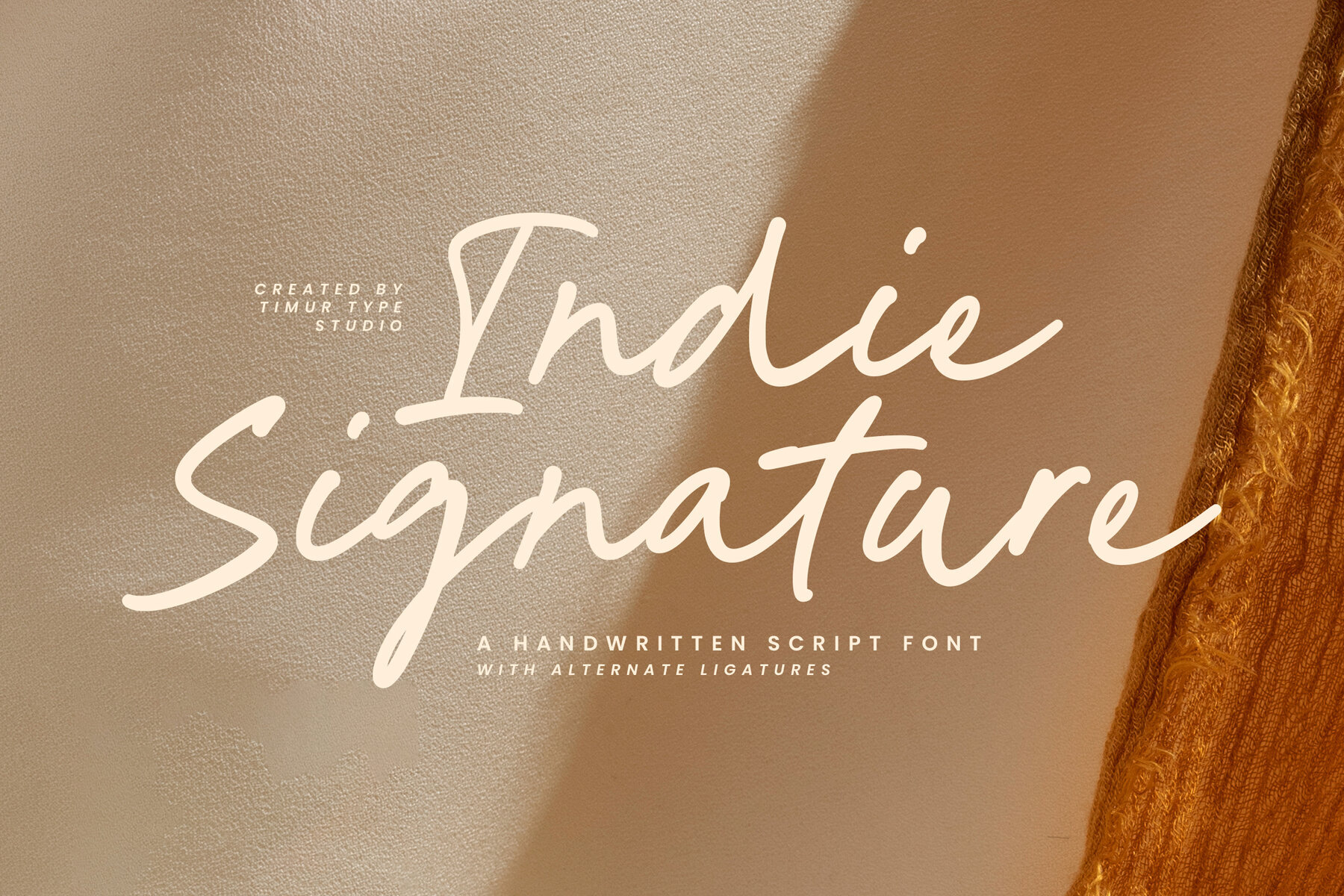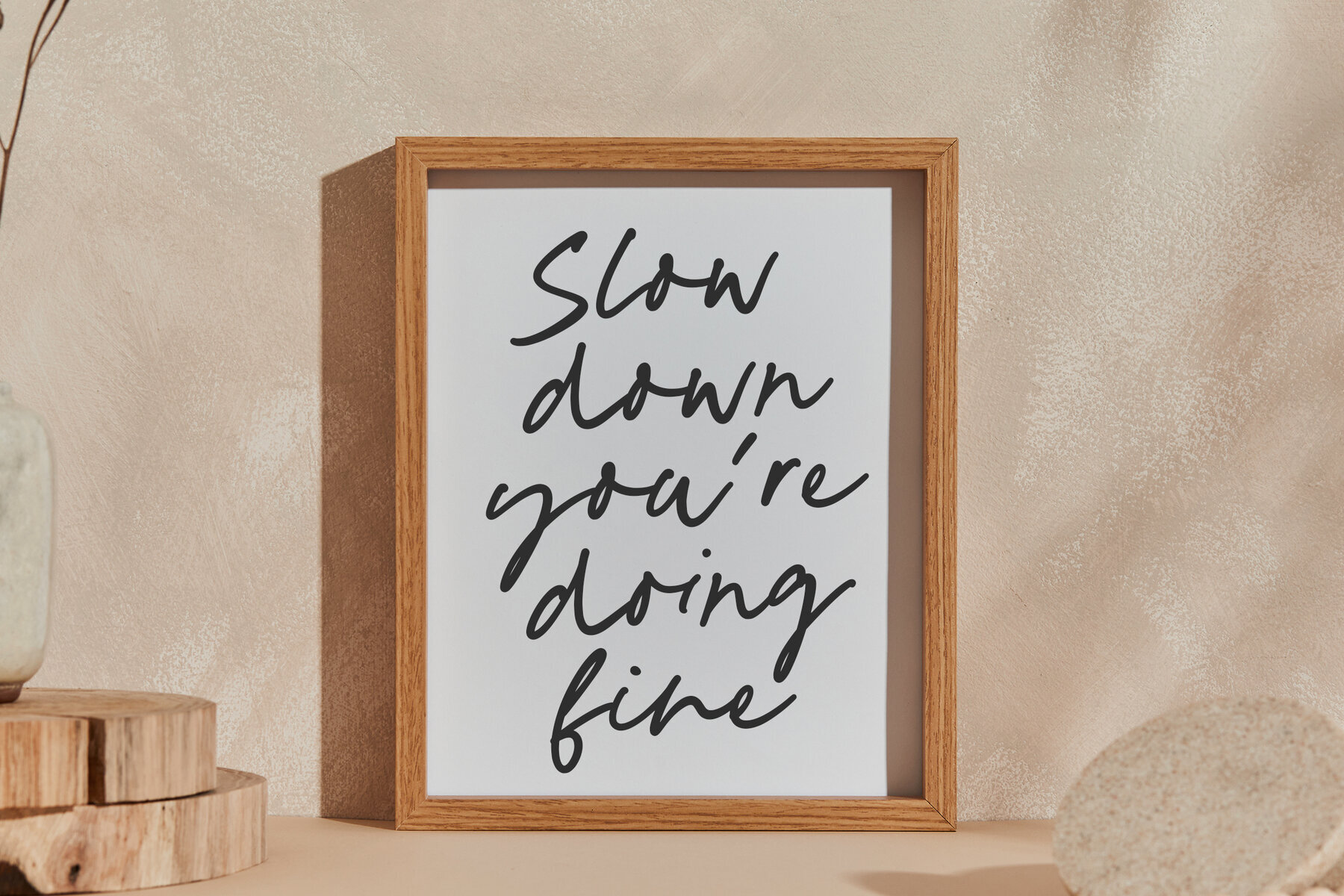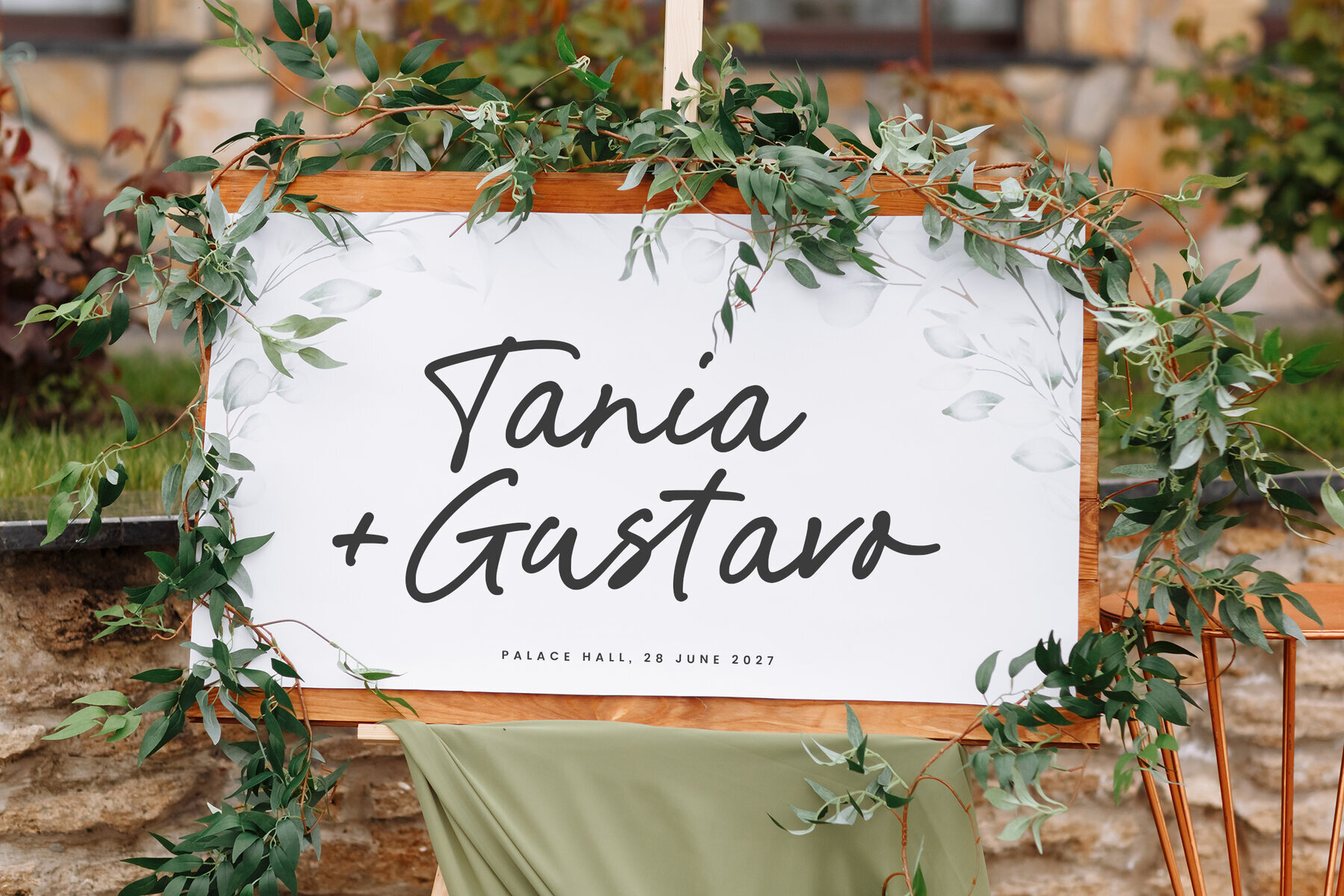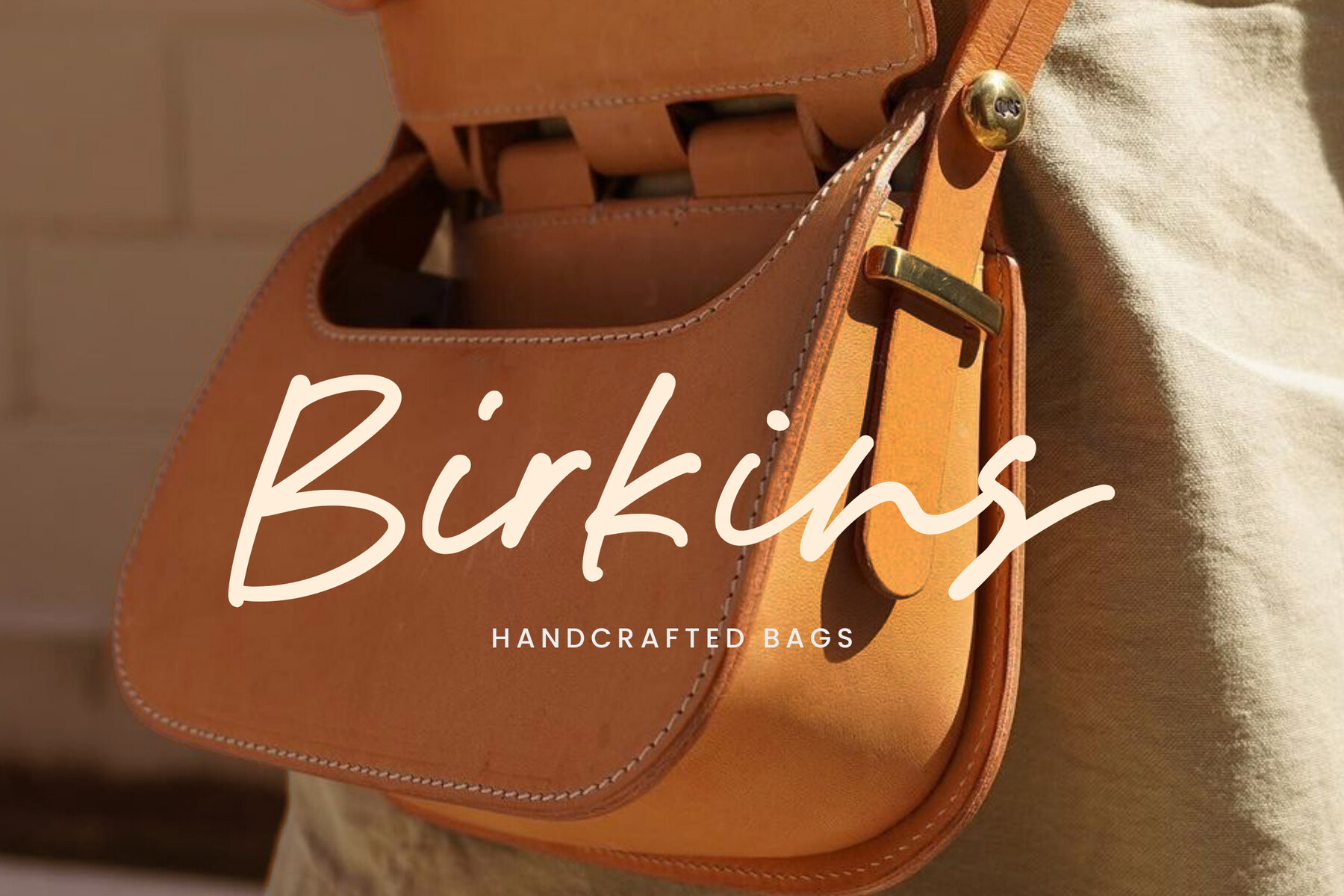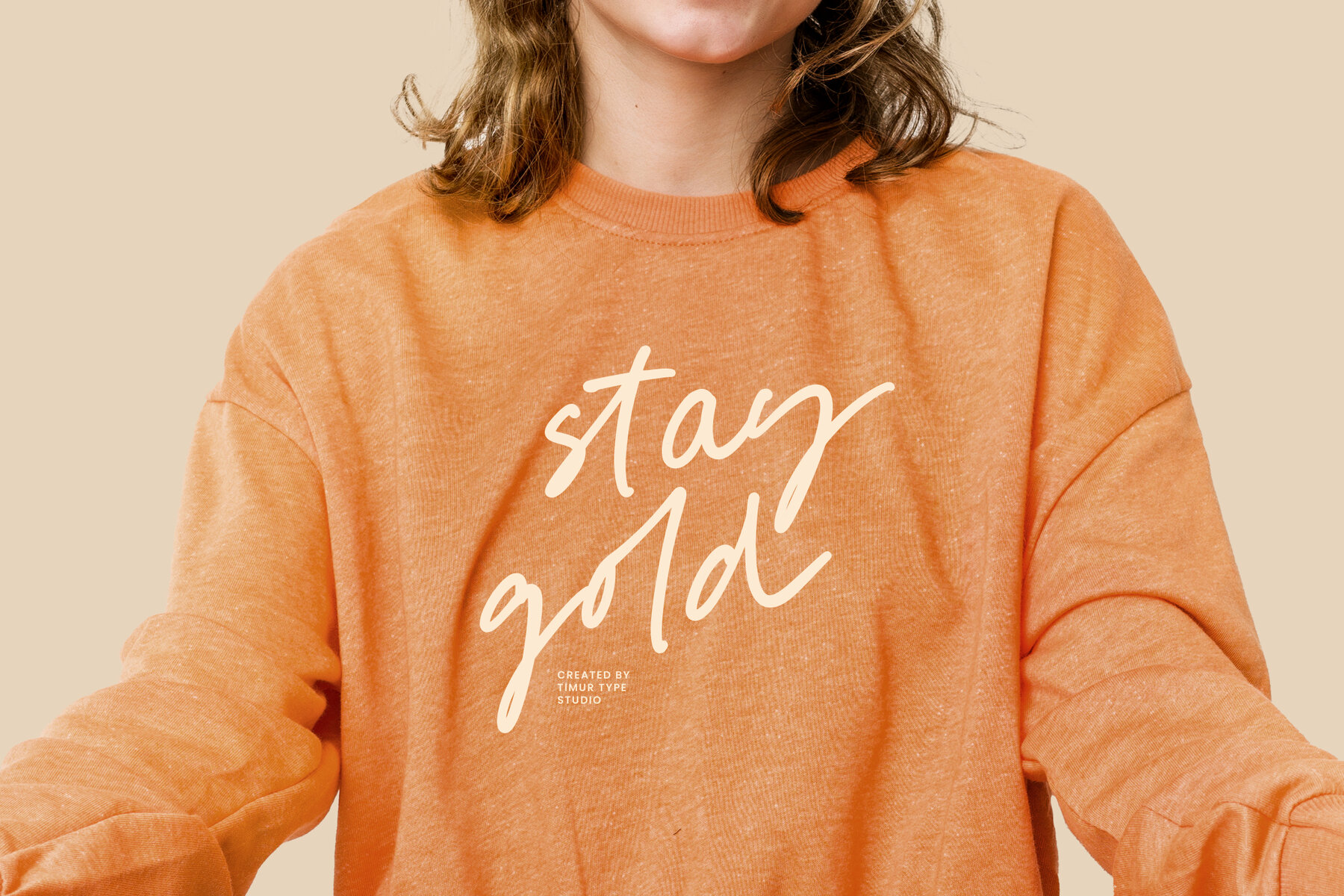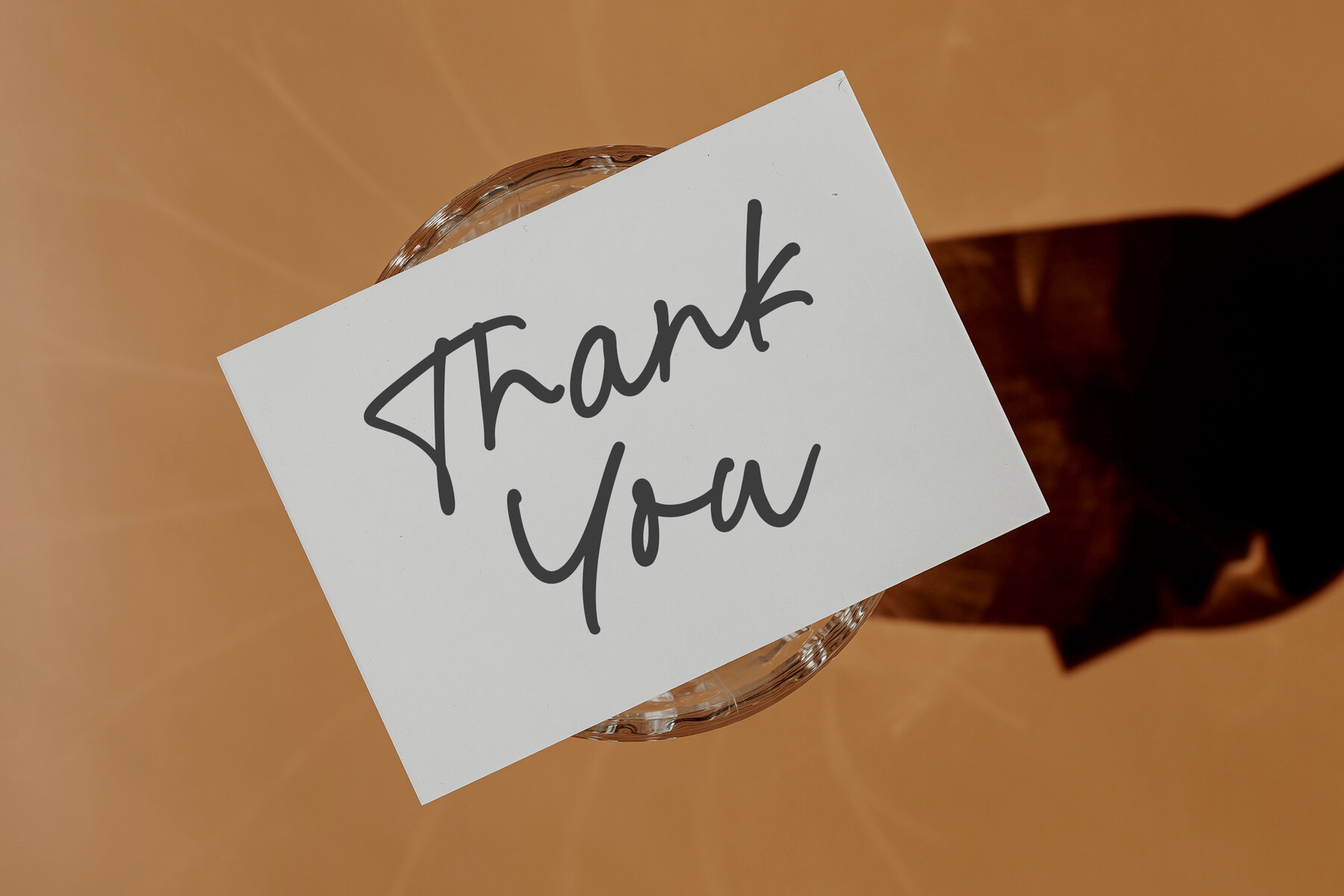
Indie Signature Font
Indie Signature
Indie Signature is a sophisticated handwritten script font that captures the essence of natural handwriting. With fluid strokes and elegant curves, this font presents a casual yet refined aesthetic, ideal for designs requiring a personal and authentic touch. Whether you're working on branding, logos, or invitations, Indie Signature offers a unique blend of individuality and creativity, enhancing the visual appeal of your projects.
The font's design maintains readability without compromising on its charming and artistic flair. It embodies a stylish grace perfect for designers aiming to infuse their work with a touch of authenticity and elegance. Indie Signature is versatile, allowing it to seamlessly complement a variety of design styles while showcasing its distinct character.